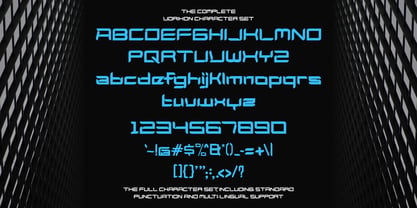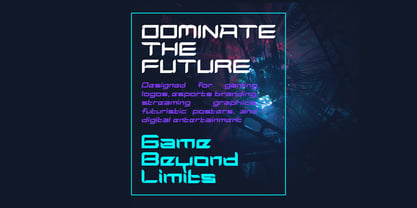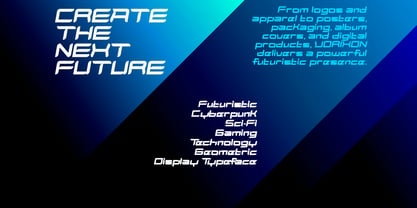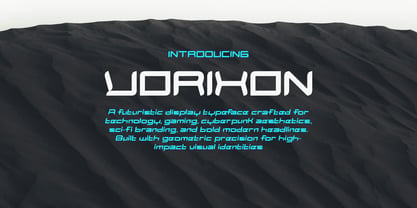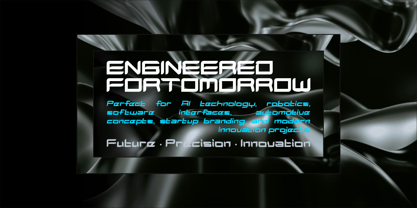
Vorixon
by Mei Suseno
VORIXON is a bold futuristic display typeface that blends geometric precision with sleek cyber-inspired forms. Designed to make a powerful visual statement, it is perfect for technology branding, gaming titles, sci-fi posters, esports identities, UI interfaces, automotive concepts, and modern digital projects. With its clean lines and high-tech aesthetic, VORIXON brings a cutting-edge look to logos, headlines, packaging, apparel, and creative branding, making every design feel innovative, dynamic, and unmistakably futuristic
Mei Suseno is an independent type foundry focused on creating distinctive, high-quality typefaces for modern branding, editorial design, digital products, and visual communication. The foundry combines contemporary aesthetics with careful craftsmanship to develop fonts that are both functional and expressive. With an emphasis on originality, versatility, and strong visual identity, Meisuseno aims to support designers, creative studios, and brands in building memorable and effective design experiences across print and digital media.